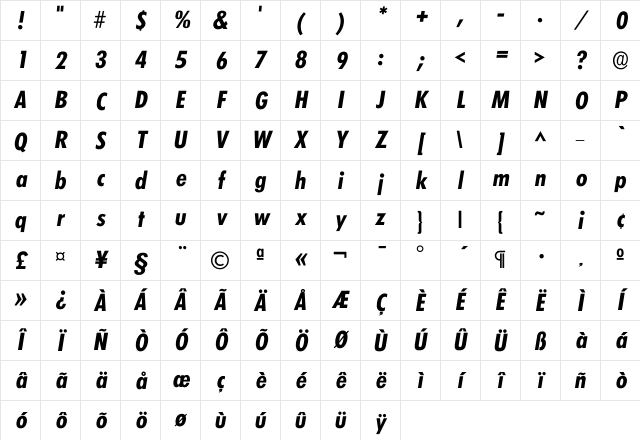
Iclimerick DemiBold
Style: DemiBold
Iclimerick Family
Design Context for Iclimerick
Iclimerick is a composed and adaptable typeface that performs quietly and consistently across a wide range of design contexts. Its bold stroke weight gives it real presence on the page.